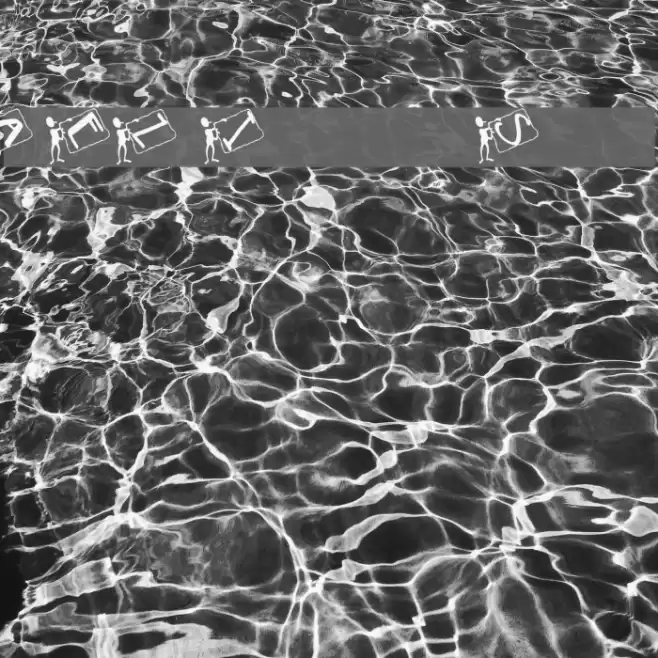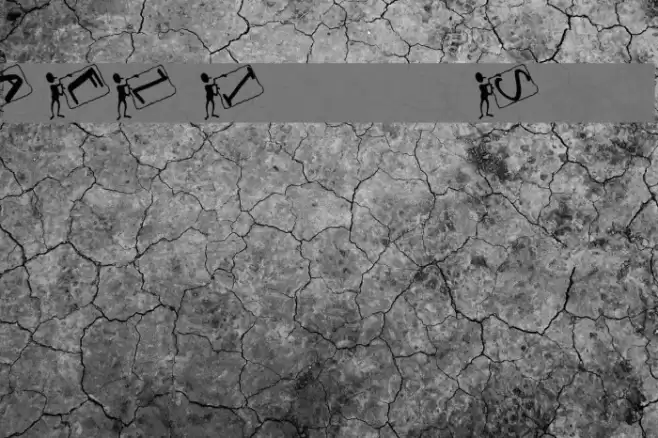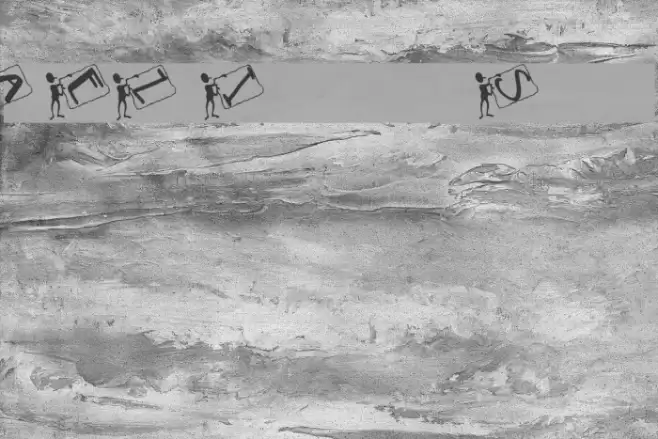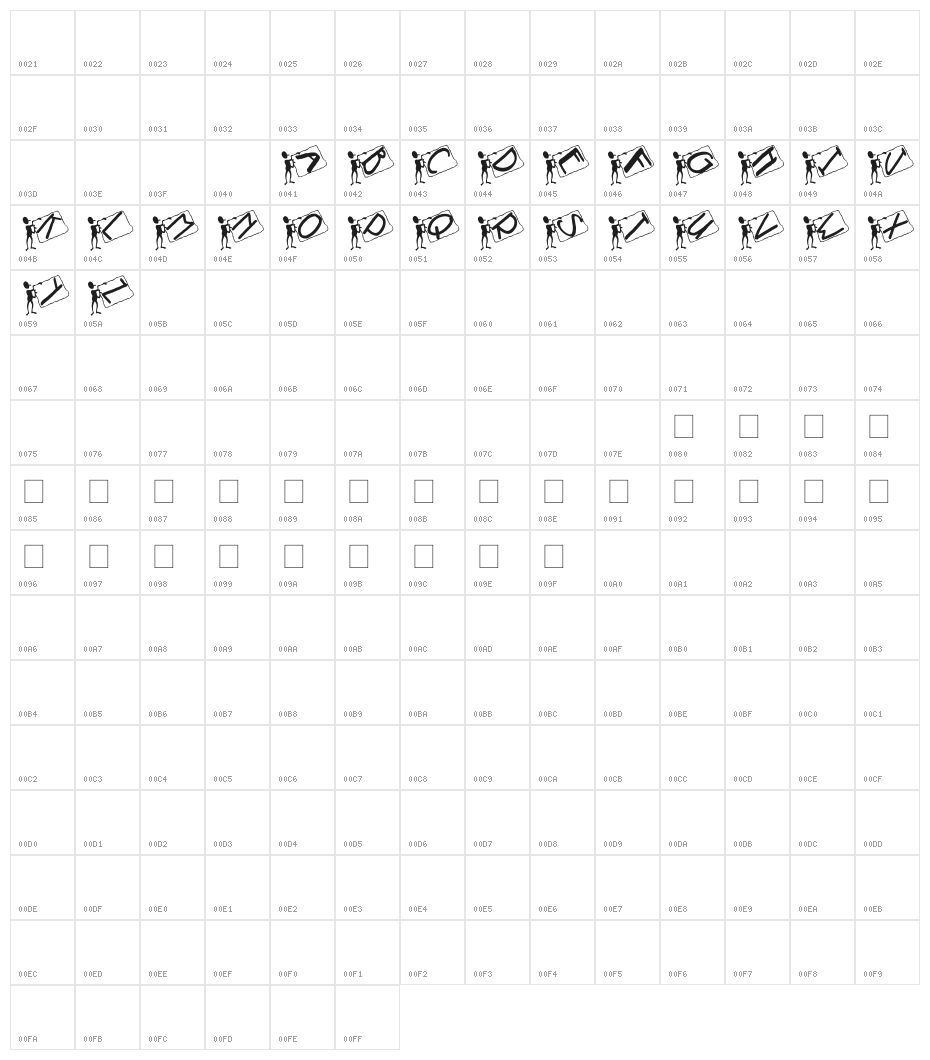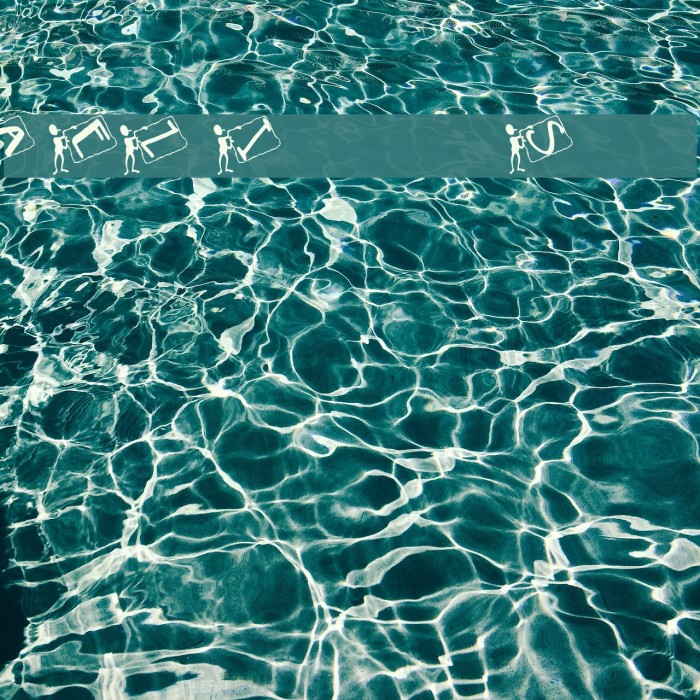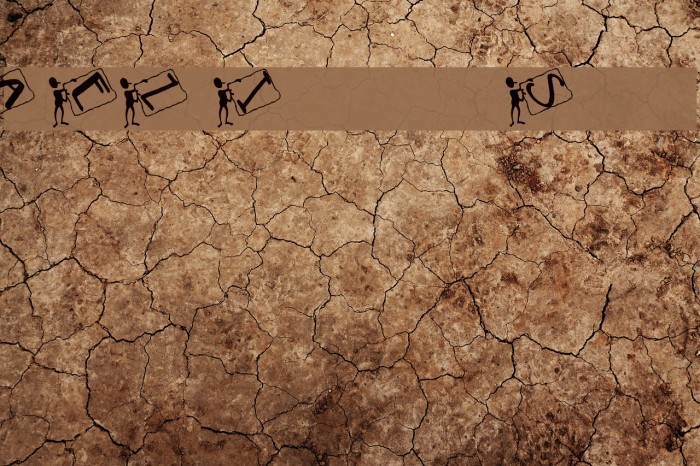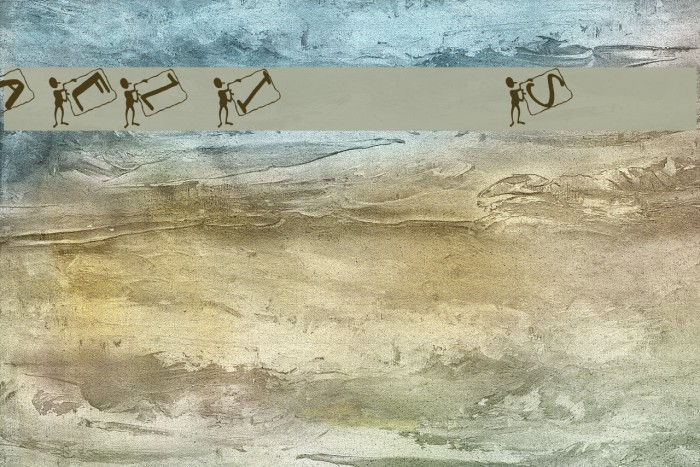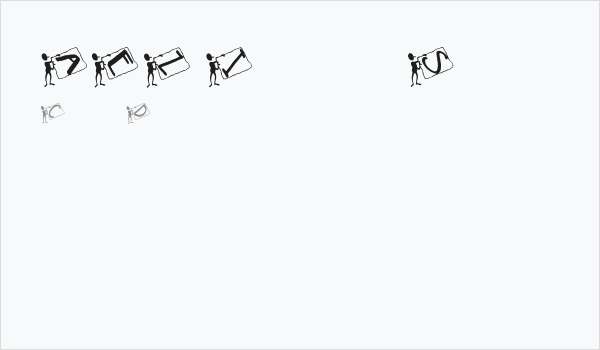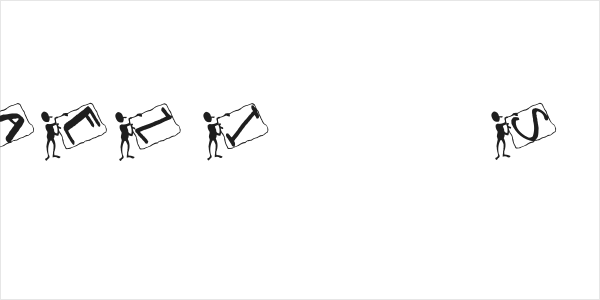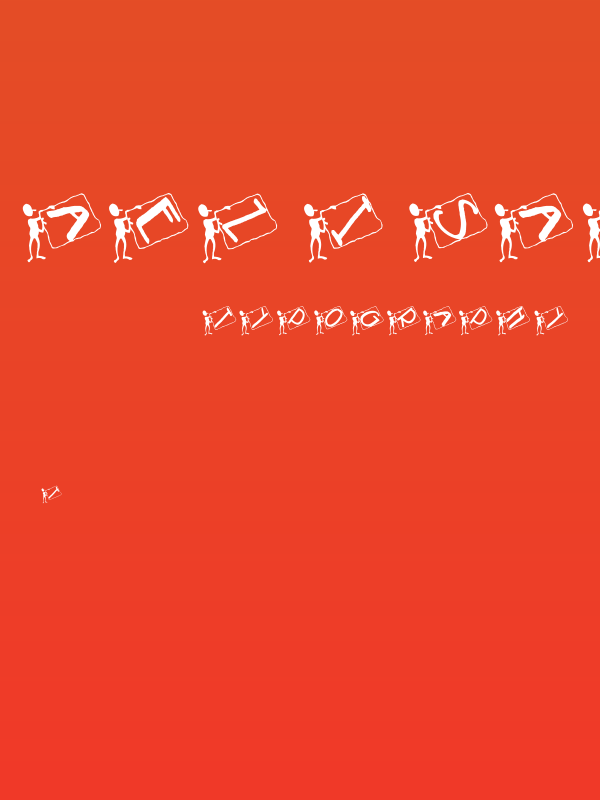
AEZ I saw the Sign Font
AEZ I saw the Sign Description
This decorative font features a unique design where each letter is accompanied by a small figure holding it up, creating a playful and whimsical appearance. The letters are bold and have a hand-drawn quality, with a slight tilt that adds to the dynamic feel. The figures add a sense of movement and personality, making the font ideal for creative and fun projects. The overall style is both artistic and engaging, capturing attention with its distinctive character.
A playful, decorative font with figures holding each letter from Uncategorized fonts.
- Proposed Projects: Ideal for children's books, playful posters, creative branding, and event invitations.
- Overall Style: Whimsical and artistic